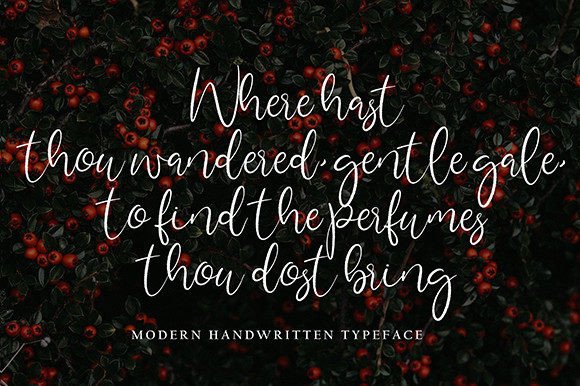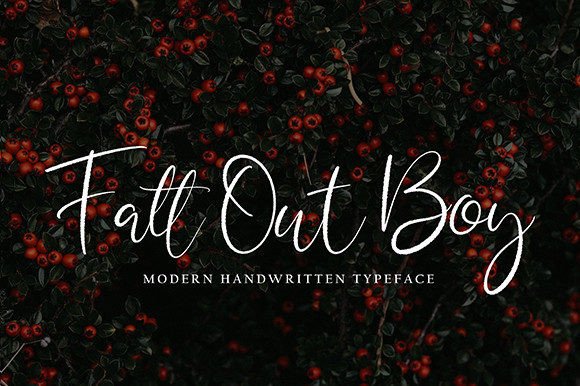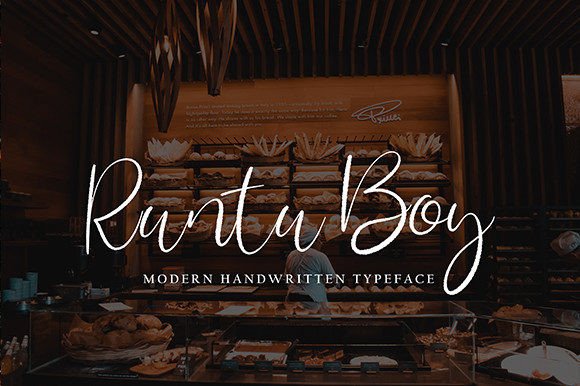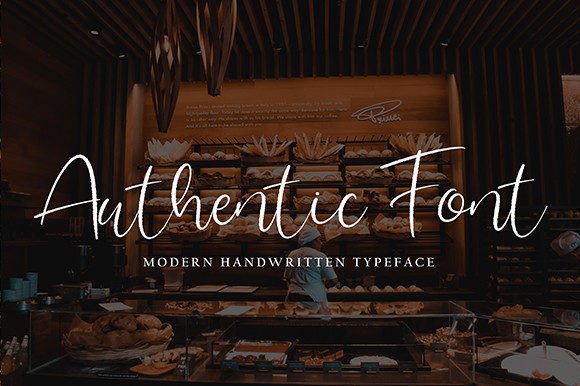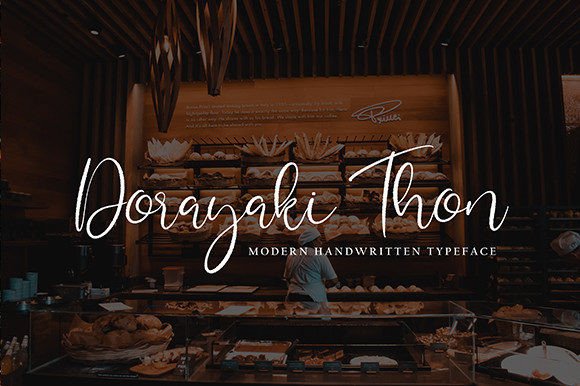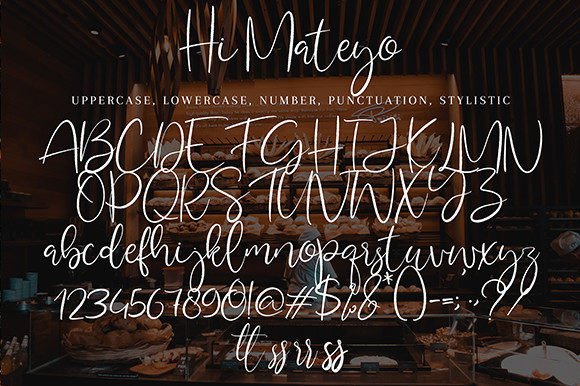
The Elusive Perfect Font: My Encounter with Hi Mateyo
Ah, the quest for the perfect font. We’ve all been there – stuck in the midst of a design project, scrolling through font libraries, and yet, nothing seems quite right. I recall a particularly frustrating moment when a client requested a “delicate, elegant, and flowing” font for their branding project. After hours of searching, I stumbled upon Hi Mateyo, and it was love at first sight. In this article, I’ll share my experience with this beautiful handwritten font, its features, and how to make the most of it in your designs.
An Honest Review of Hi Mateyo
- ✨ Delicate and elegant: Hi Mateyo’s characters are beautifully crafted, exuding a sense of refinement and sophistication.
- ✅ Well-balanced: The font’s proportions are spot on, making it easy to read and visually appealing.
- 🌈 Versatile: Hi Mateyo matches a wide range of designs, from feminine and whimsical to modern and minimalist.
While Hi Mateyo is an excellent font, it’s not without its quirks. For instance:
- 🤔 Limited use in very large or very small sizes: Hi Mateyo shines in medium to large sizes. However, when used in extremely large or small sizes, some details might get lost.
- ⚠️ Not ideal for body text: Due to its elegant and flowing nature, Hi Mateyo is better suited for headings, titles, and short paragraphs rather than lengthy body text.
- Explore OpenType features, glyphs, and stylistic alternates to add more personality to your text.
One of the standout features of Hi Mateyo is its support for OpenType features, glyphs, and stylistic alternates. These features allow you to customize your text and add a unique touch to your designs.
| Feature | Description |
| Stylistic Alternates | Provides alternative characters for a more personalized look. |
| Glyphs | Offers additional characters, such as ligatures and ornaments, to enhance your design. |
The Story Behind Hi Mateyo
While the origins of Hi Mateyo are shrouded in mystery, it’s clear that the designer was inspired by the beauty of handwritten scripts. The font’s elegant and flowing nature makes it perfect for designs that require a touch of sophistication and refinement.
| Font Name | Hi Mateyo Font |
| Author | Pineungtype & Missinklab |
Q: What type of designs is Hi Mateyo best suited for?
A: Hi Mateyo is versatile and can be used in a wide range of designs, from feminine and whimsical to modern and minimalist.
Q: Is Hi Mateyo available in different weights or styles?
A: Hi Mateyo comes in a single weight, but its elegant and flowing nature makes it perfect for use in various designs.